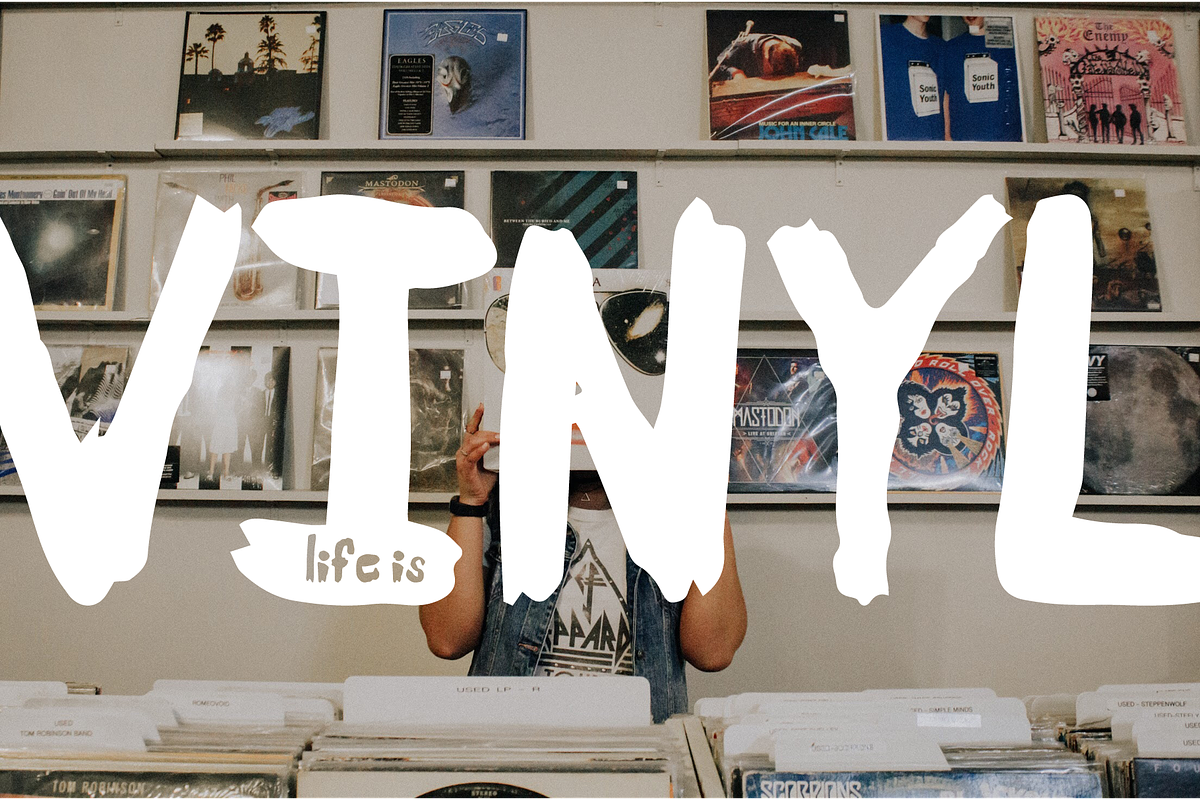
Scratchapalooza
Scratchapalooza is a quick and dirty hipstery typeface. Can be used as a display font and works great for those moody photos.
1. Scratchapalooza Thin still offers that quick and dirty feel, but with less scratchiness. It gives good contrast when paired with Regular or Bold.
2. Scratchapalooza Regular is a great display font. It contains lower and uppercase letters, numbers and punctuation.
3. Scratchapalooza Bold offers thicker lines than Regular, and offers good contrast when paired with Regular or Thin. It contains lower and uppercase letters, numbers and punctuation.
3. Scratchapalooza Black offers a heavy and clunky feel. It gives good contrast when paired with Regular or Thin.